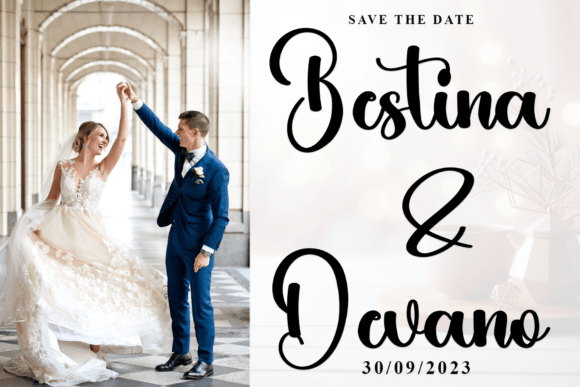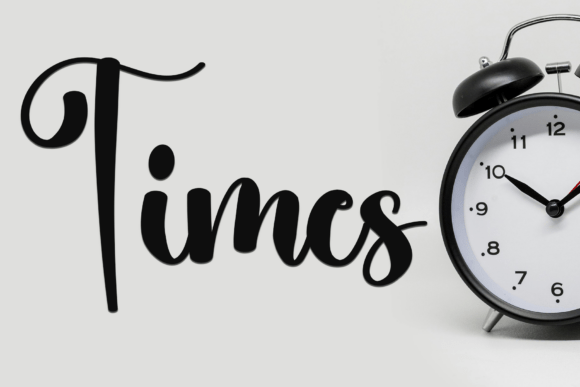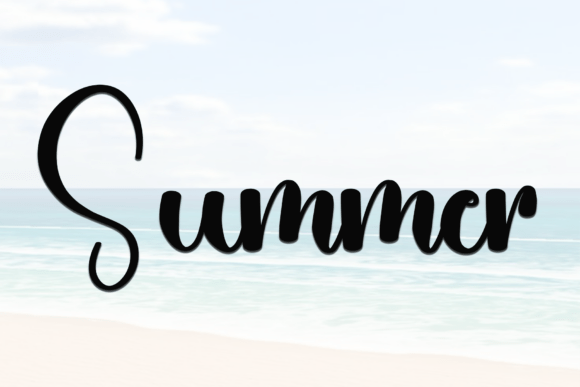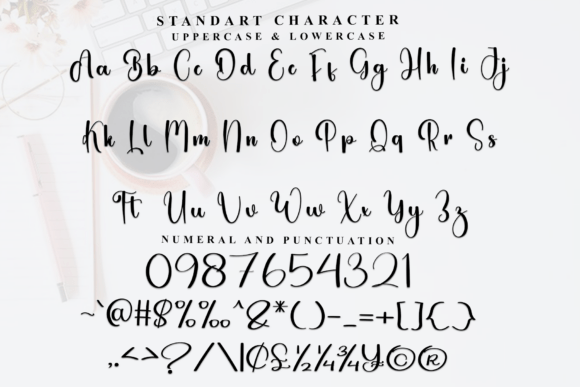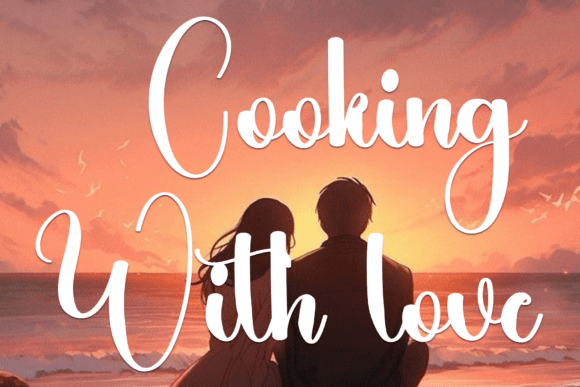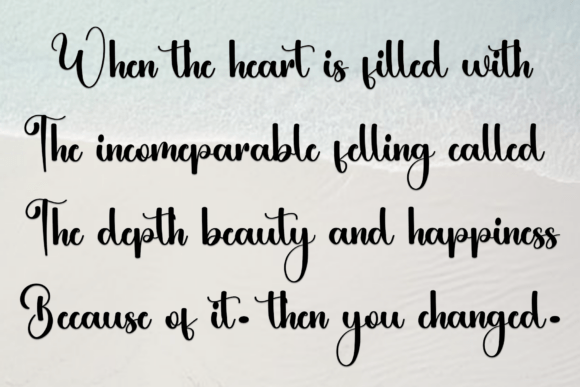
Introducing Beauty Autography Font: Elevate Your Designs with a Unique Touch
In the world of design, fonts play a crucial role in conveying messages, expressing emotions, and creating a lasting impression. For designers, crafters, and creative enthusiasts, finding the perfect font can be a daunting task. However, with the emergence of Beauty Autography Font, the search is over. This beautiful and eye-catching font is designed with a soft, unique touch that sets it apart from the rest.
The Distinctive Characteristics of Beauty Autography Font
Beauty Autography Font boasts distinctive strokes that give it a special character, making it meaningful and versatile for future use. The font’s unique design ensures that it stands out in any design project, whether it’s for crafts, creative works, or other artistic endeavors. With a wide range of characters, Beauty Autography Font offers endless possibilities for designers to experiment and express their creativity.
Beauty Autography Font is perfect for various design projects, including crafts, posters, brochures, and other creative works. Its natural font style and soft touch make it an ideal choice for designers who want to add a personal touch to their designs. Whether you’re working on a DIY project, creating handmade cards, or designing social media graphics, Beauty Autography Font is sure to elevate your work.
- Digital designs, such as social media graphics and blog posts
- Print materials, like brochures, posters, and business cards
- Crafts, including handmade cards, scrapbooking, and DIY projects
- Web design, including website headers, titles, and descriptions
Enhance Your Designs with Beauty Autography Font
Beauty Autography Font has the power to transform your designs and make them appealing to a wide range of audiences. Its unique touch and soft strokes will add a personal touch to your work, setting it apart from the rest. Whether you’re a professional designer or a creative enthusiast, this font is sure to inspire you to create something amazing.
Why Choose Beauty Autography Font?
Here are some compelling reasons to choose Beauty Autography Font for your next design project:
- Unique Design: Beauty Autography Font boasts a distinctive design that sets it apart from other fonts.
- Versatility: This font is perfect for various design projects, crafts, and creative works.
- Natural Font Style: Beauty Autography Font has a natural font style that adds a personal touch to your designs.